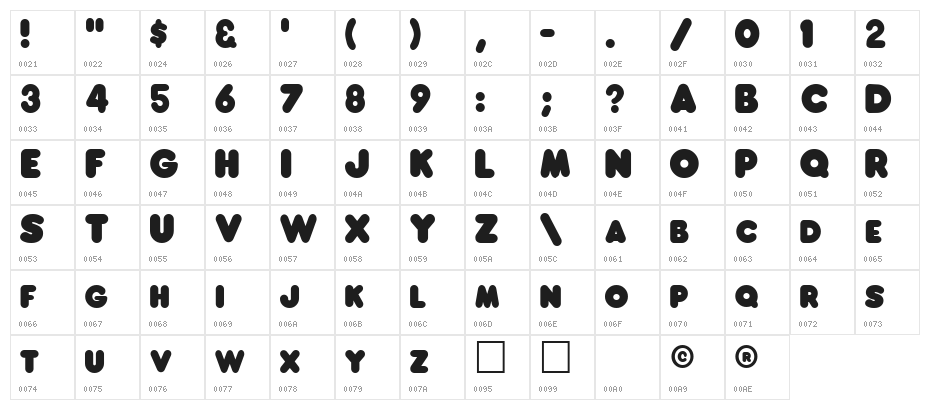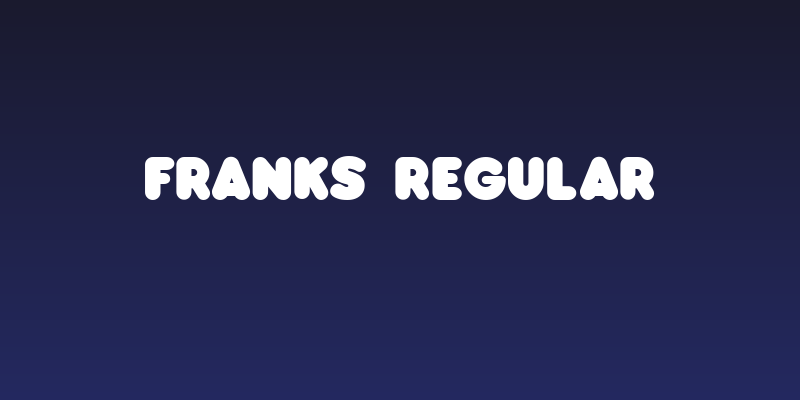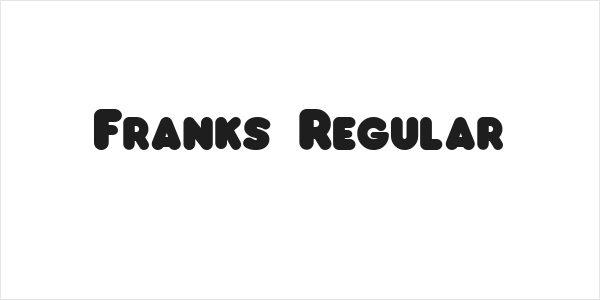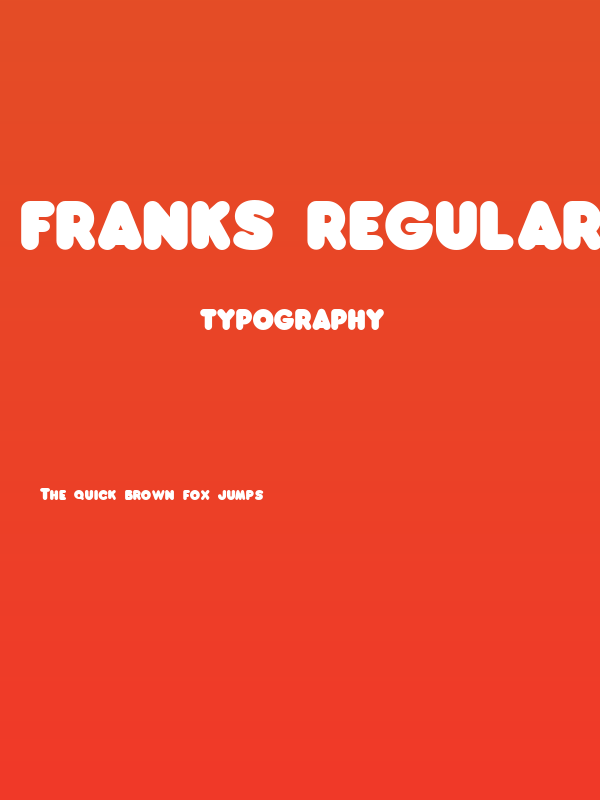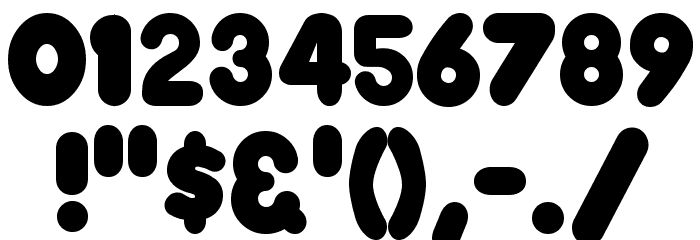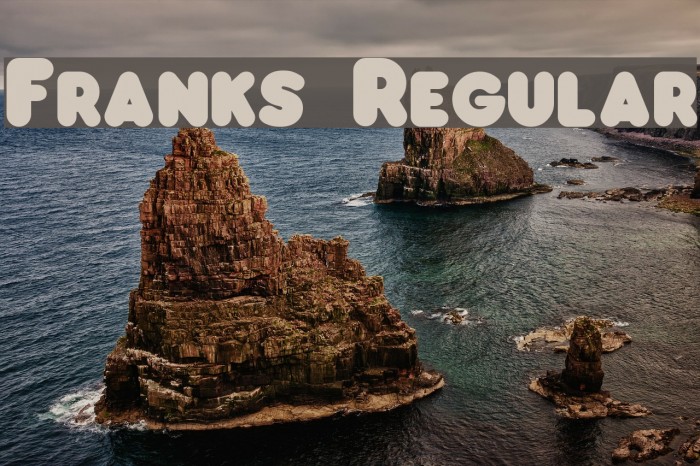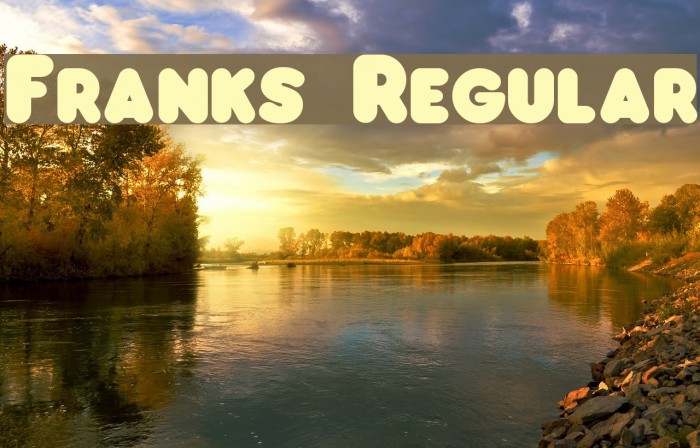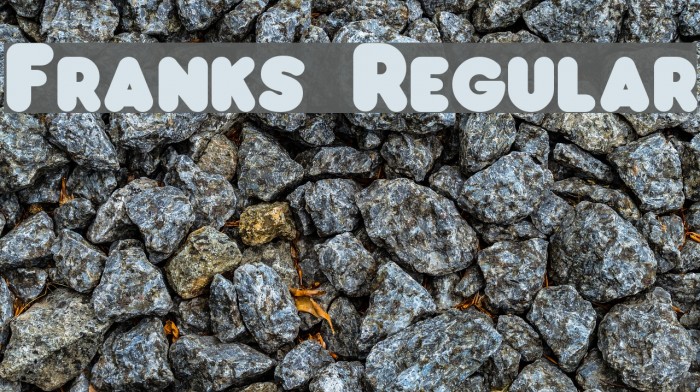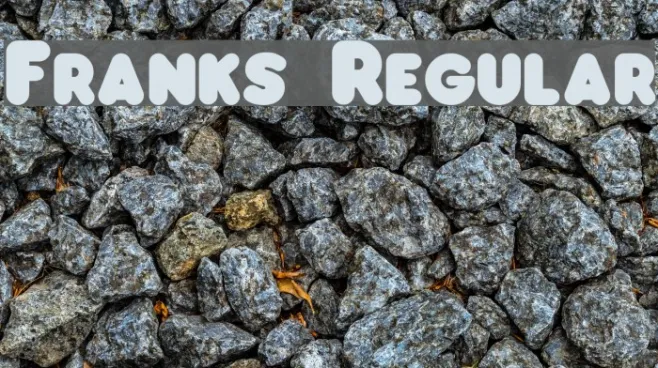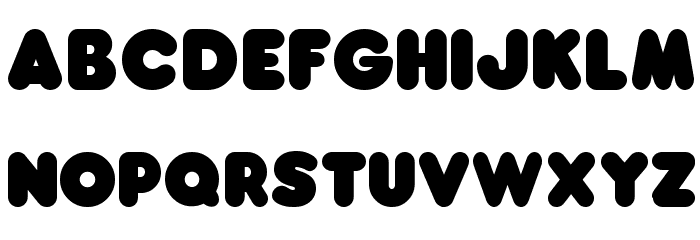
Franks Regular Font
Franks Regular Description
This font features bold, rounded characters with a playful and friendly appearance. The letters are thick and uniform, creating a strong visual impact. The rounded edges give it a soft and approachable feel, making it ideal for designs that require a touch of whimsy or fun. The numbers and special characters maintain the same bold and rounded style, ensuring consistency across all elements. This font is particularly well-suited for projects that aim to convey warmth and approachability.
| Overall Style | Playful |
| Proposed Projects | Ideal for children's books, playful branding, posters, and social media graphics. |